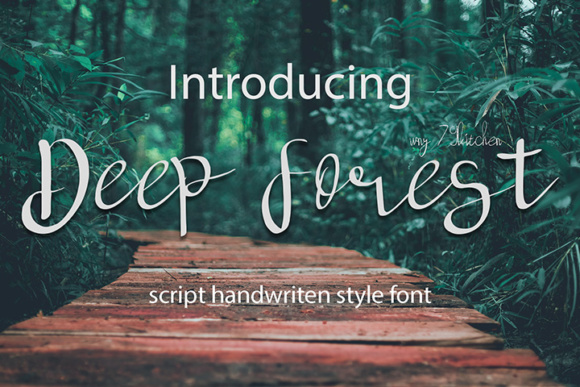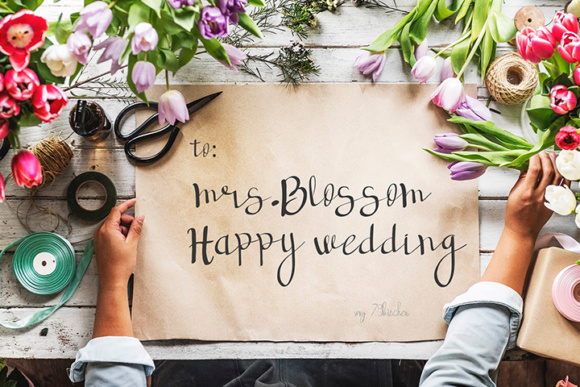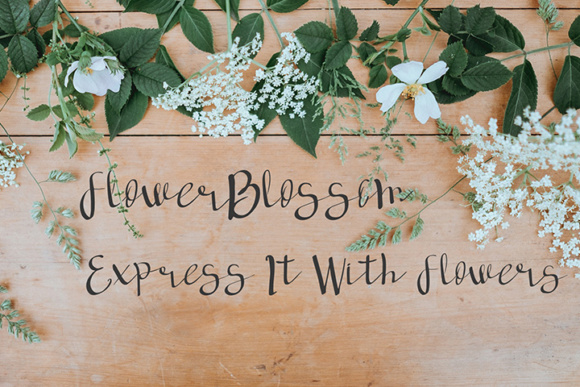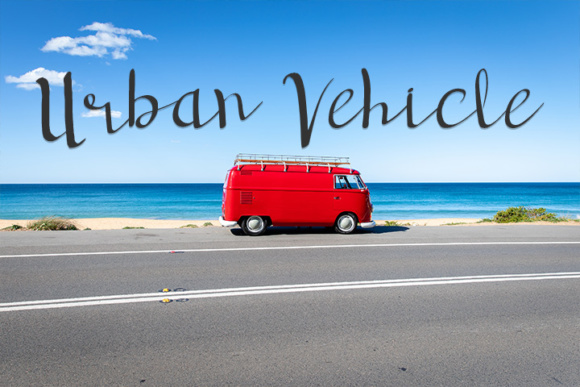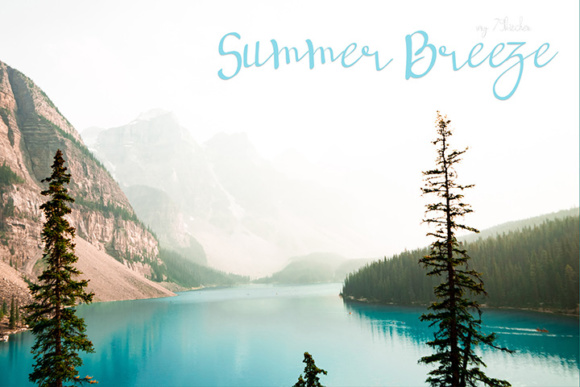
Deep Forest Font
About Deep Forest Font
Deep Forest is a calm, beautiful, handwritten font that is perfect for a wide range of projects. This handwritten font is great as a signature, which can add a unique feel in all of your designs.